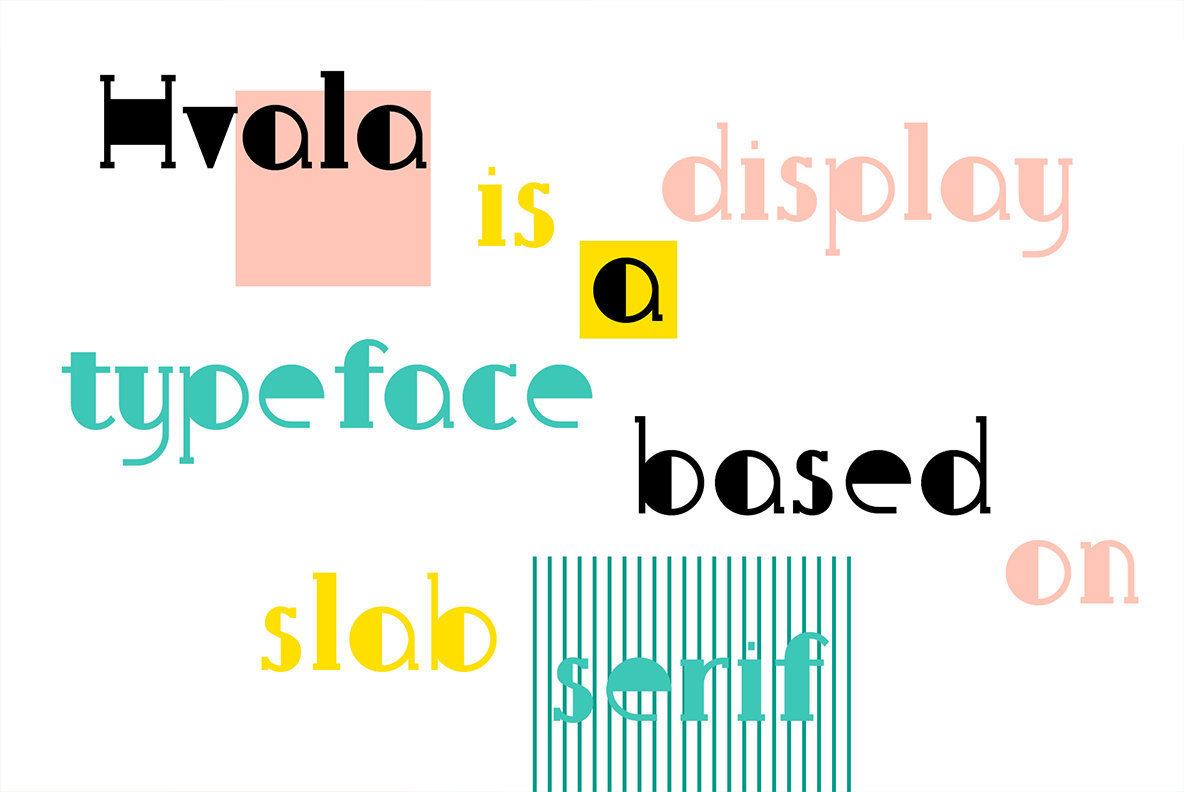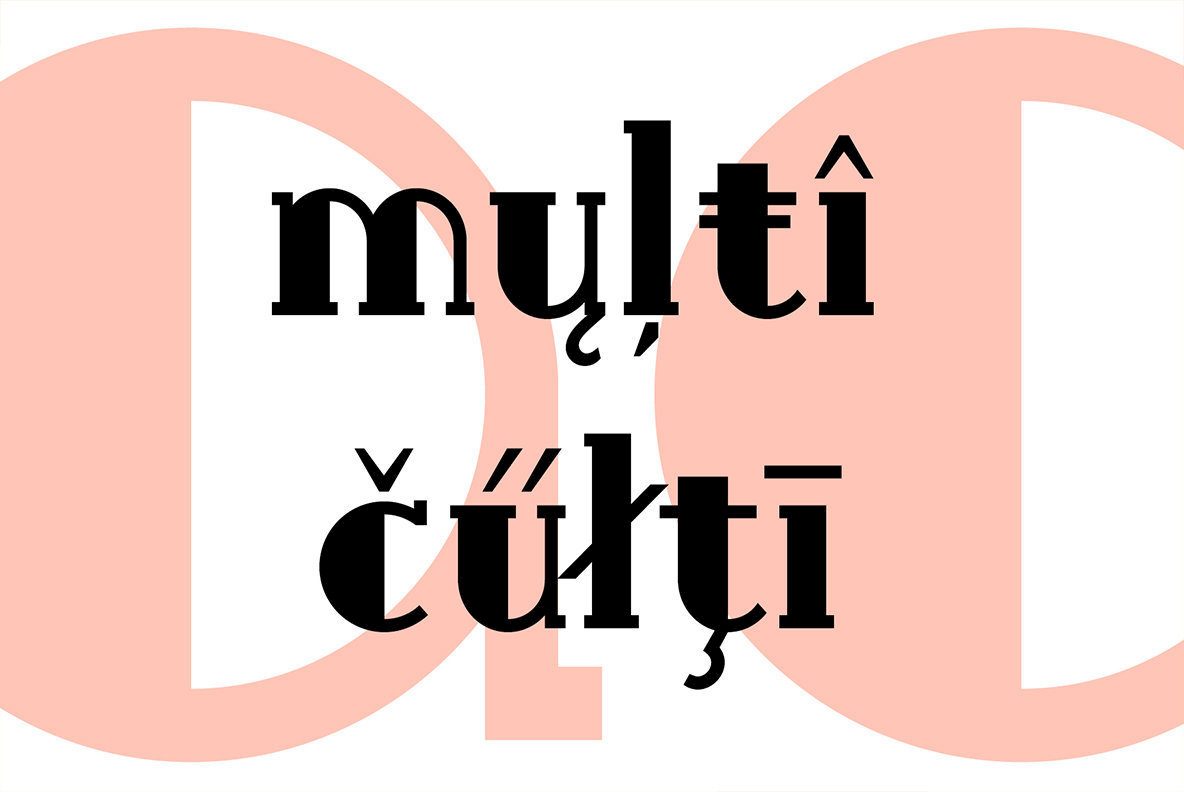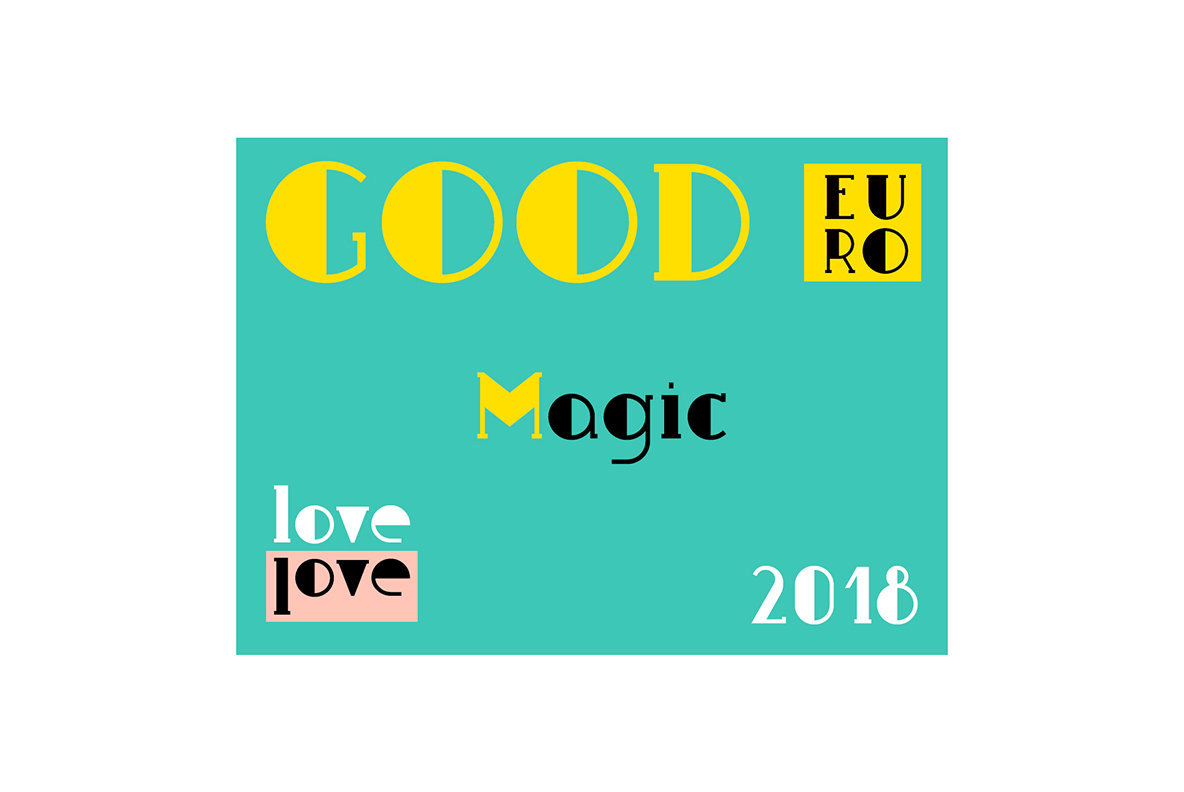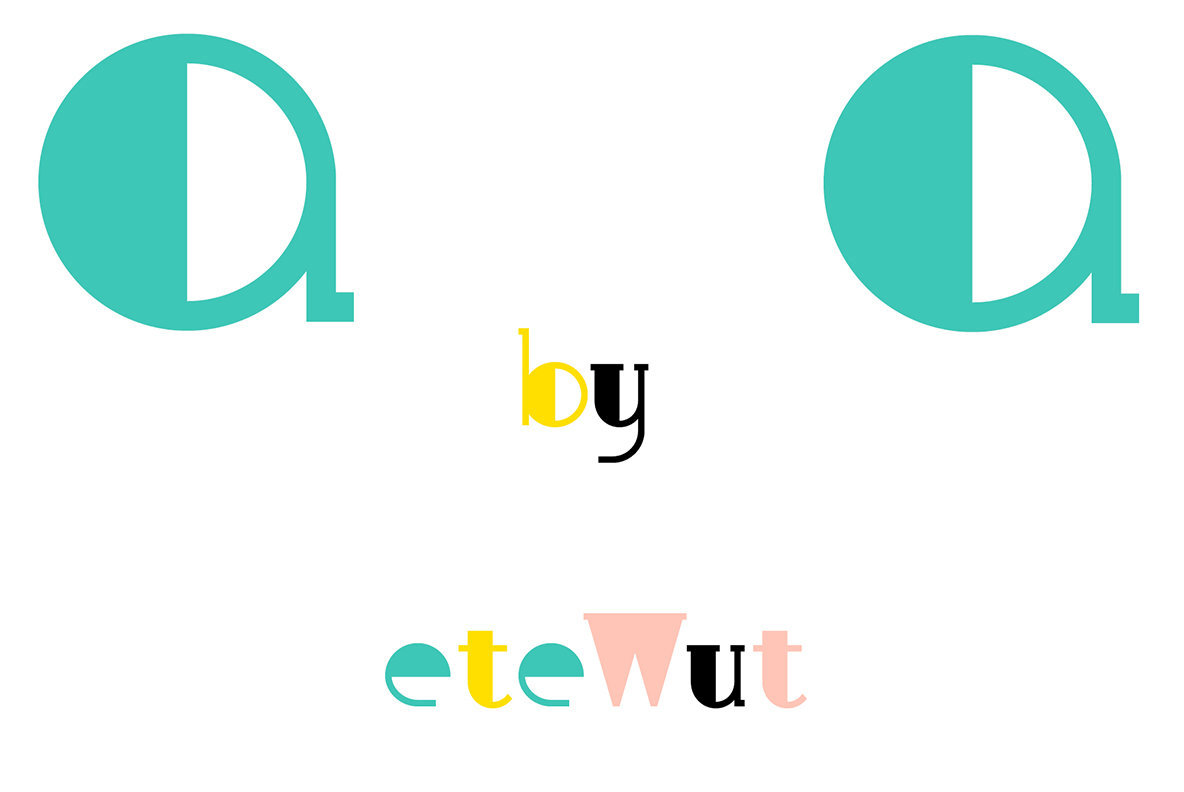
Hvala Font
Hvala, an innovative display typeface by Etewut Foundry, exudes sophistication. Rooted in the slab serif tradition, it offers a robust and versatile option for graphic designers seeking to captivate audiences across Europe and beyond. The name 'Hvala' translates to 'praise,' encapsulating the font's ability to convey respect and reverence. With every stroke, it invites users to pour both sincerity and creativity into their work.Hvala: Expressive Slab Serif Typeface